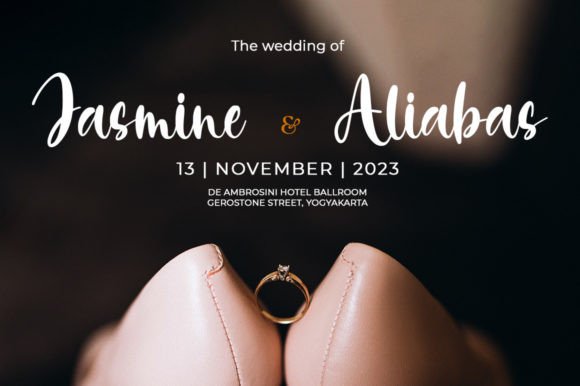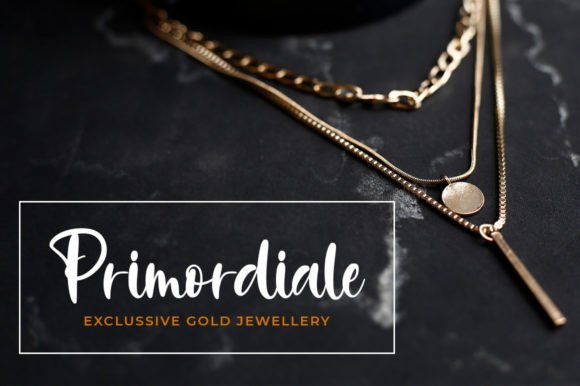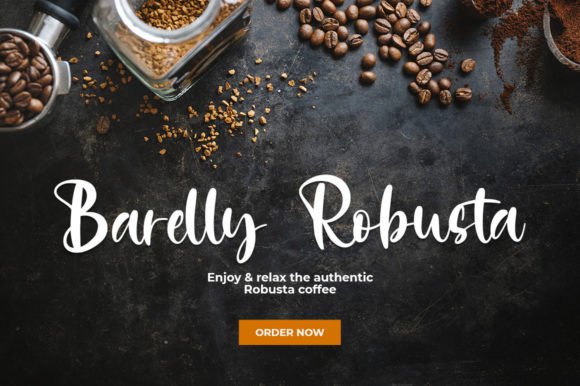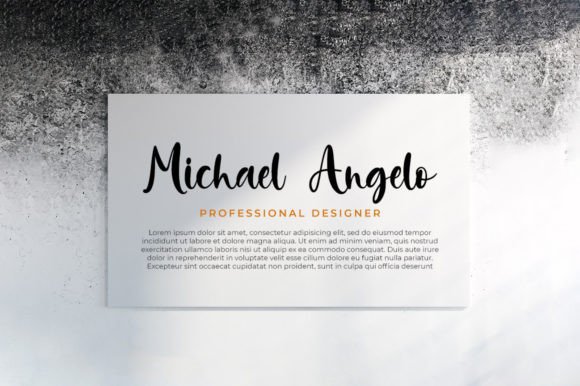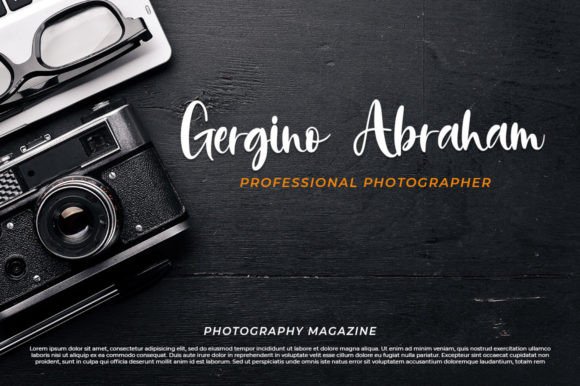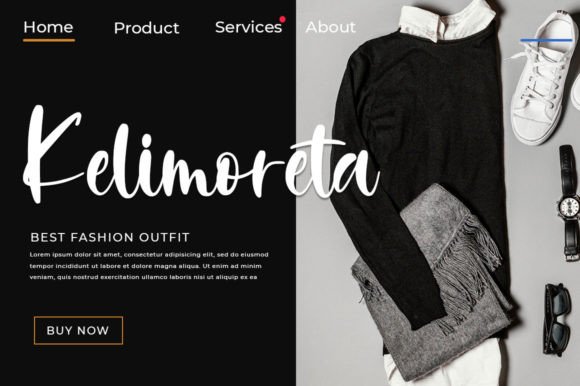
Dastardly Font: Elevate Your Designs with Elegance and Sophistication
In the world of typography, a font can make or break a design. For designers and crafters looking to add a touch of elegance and sophistication to their projects, Dastardly Font is an excellent choice. This stylish and elegant script font offers gorgeous typographic energy, perfect for a wide range of applications, from logos and branding to invitations, stationery, and more.
What is Dastardly Font?
Dastardly Font is a beautifully crafted script font that exudes luxury and refinement. Its elegant strokes and flowing lines make it perfect for designs that require a high level of sophistication. Whether you’re working on a logo, invitation, or social media post, Dastardly Font is sure to make a lasting impression.
Key Features of Dastardly Font
- Elegant and Sophisticated: Dastardly Font boasts a stylish and refined design that’s perfect for high-end projects.
- Versatile: This font is suitable for a wide range of applications, including logos, branding, invitations, stationery, wedding designs, social media posts, advertisements, product packaging, and more.
- Gorgeous Typographic Energy: Dastardly Font offers a unique and captivating typographic energy that will elevate your designs and make them stand out.
- Easy to Read: Despite its elegant design, Dastardly Font is easy to read, making it perfect for body text and headlines.
Use Cases for Dastardly Font
Dastardly Font is an incredibly versatile font that can be used in a variety of design projects. Here are some use cases to get you started:
- Invitations and Stationery: Add a touch of elegance to your invitations, business cards, and letterheads.
- Wedding Designs: Make your wedding designs truly unforgettable with Dastardly Font’s elegant and sophisticated design.
- Social Media Posts: Elevate your social media presence with stylish and engaging posts that showcase your brand’s personality.
- Advertisements: Create eye-catching advertisements that grab attention and leave a lasting impression.
- Product Packaging: Add a touch of luxury to your product packaging and make it stand out on store shelves.
Tips for Using Dastardly Font
To get the most out of Dastardly Font, here are some tips to keep in mind:
- Use it Sparingly: Dastardly Font is a statement font, so use it sparingly to make a lasting impression.
- Pair it with Other Fonts: Experiment with pairing Dastardly Font with other fonts to create a unique and captivating design.
- Adjust the Size and Color: Play with the size and color of Dastardly Font to create visual interest and hierarchy in your design.
| Font Name | Dastardly Font |
| Author | fanastudio |
Dastardly Font is an exceptional script font that offers elegance, sophistication, and versatility. With its gorgeous typographic energy and wide range of applications, it’s perfect for designers and crafters looking to elevate their designs. Whether you’re working on a logo, invitation, or social media post, Dastardly Font is sure to make a lasting impression.